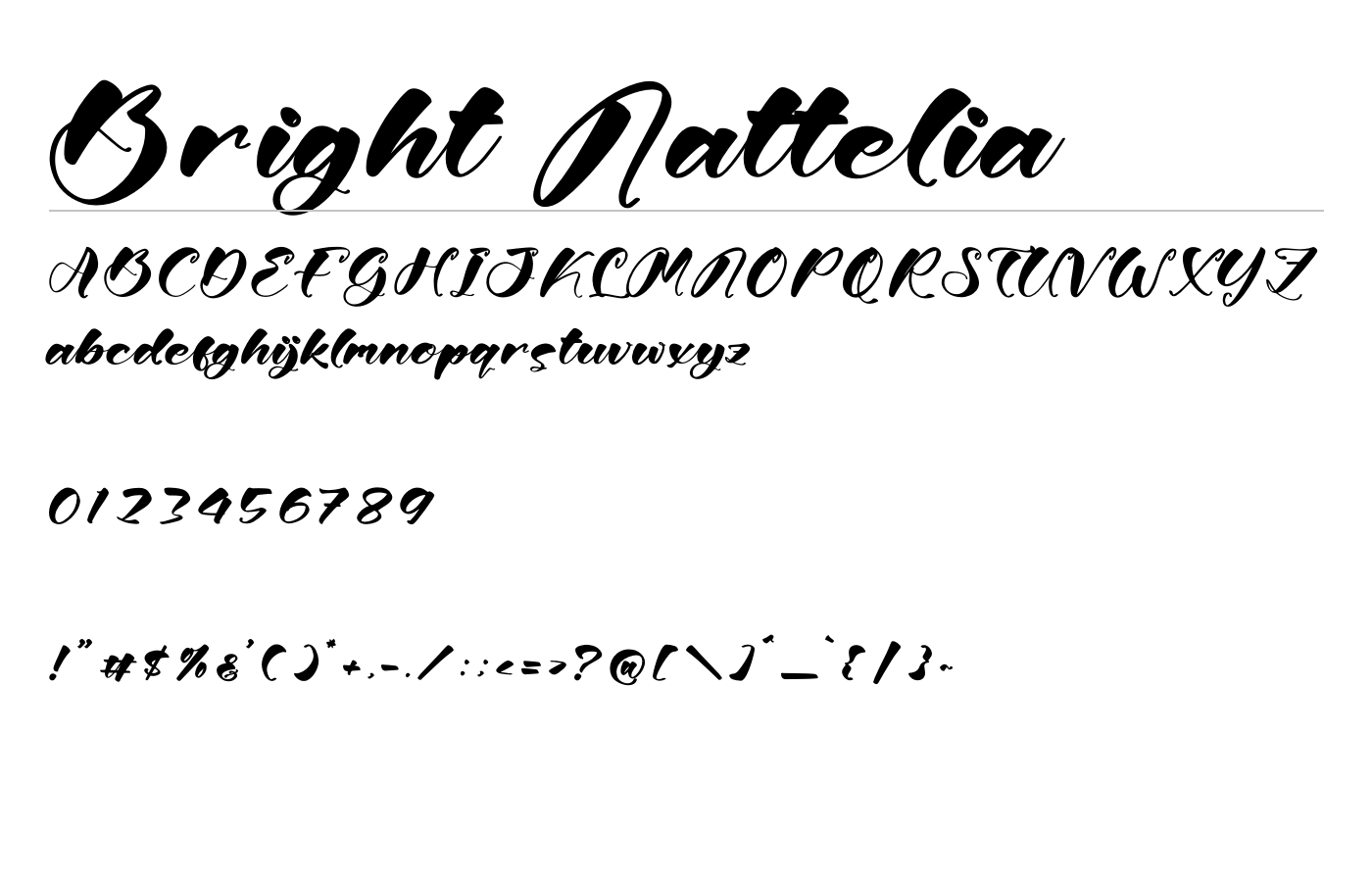
Bright Nattelia is a lively and elegant script font characterized by its bold strokes and fluid, brush-like style. Its high contrast and flowing letterforms give it a modern yet playful personality, making it perfect for branding, invitations, and creative headlines where a touch of sophistication and warmth is desired. This font works especially well in designs that seek to combine elegance with a hand-crafted, personal feel.
Bright Nattelia Font
About Bright Nattelia Font
| Font family | Bright Nattelia Font |